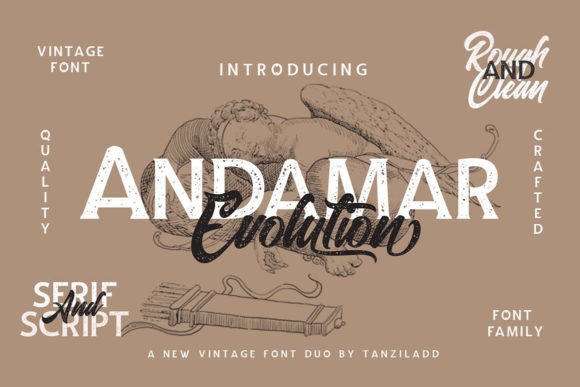
The Ultimate Font for Modern Design: Andamar Font
I’ll never forget the struggle I faced while working on a project for a trendy boutique hotel. My client wanted a font that exuded modernity, sophistication, and a touch of edginess. I scoured the internet, tried countless font combinations, but nothing seemed quite right. That was until I stumbled upon the Andamar Font. This duo font, featuring a sleek and modern design, combining a rough serif font with a smooth and elegant script, was exactly what I needed. In this article, I’ll share my experience with Andamar Font, its features, and how to make the most of it in your designs.
What Makes Andamar Font Special?
Andamar Font is a unique combination of two fonts: a rough serif font and a smooth script font. The serif font boasts strong and edgy lines, while the script adds a touch of sophistication and fluidity. This balance of contrasting styles makes Andamar Font perfect for any contemporary design project.
Here’s what I love about Andamar Font:
- ✨ Versatility: Andamar Font is perfect for a wide range of design projects, from branding and advertising to packaging and digital media.
- ✅ Elegant and edgy: The combination of the rough serif and smooth script fonts creates a unique and captivating visual effect.
- 💡 Easy to read: Despite its edgy design, Andamar Font is surprisingly easy to read, making it perfect for body text and headlines.
Small quirks or limitations:
- 🤔 Limited use of uppercase letters: While Andamar Font does include uppercase letters, they might not be as stylized as some users would like.
- ⚠️ Glyph limitations: Andamar Font has a limited set of glyphs, which might not be sufficient for some languages or special characters.
The Story Behind Andamar Font
Andamar Font was designed by a team of typographers who wanted to create a unique and versatile font for modern designers. Inspired by the contrast between rough and smooth textures, the team combined a rough serif font with a smooth script font to create Andamar Font. The result is a font that’s both elegant and edgy, perfect for a wide range of design projects.
| Font Name | Andamar Font |
| Author | JumboDesign |
| What is Andamar Font? | Andamar Font is a duo font that combines a rough serif font with a smooth and elegant script. |
| Is Andamar Font suitable for body text? | Yes, Andamar Font is surprisingly easy to read, making it perfect for body text and headlines. |
| Does Andamar Font include OpenType features? | Yes, Andamar Font includes OpenType features, such as stylistic alternates and glyphs, which can be accessed in compatible design software. |